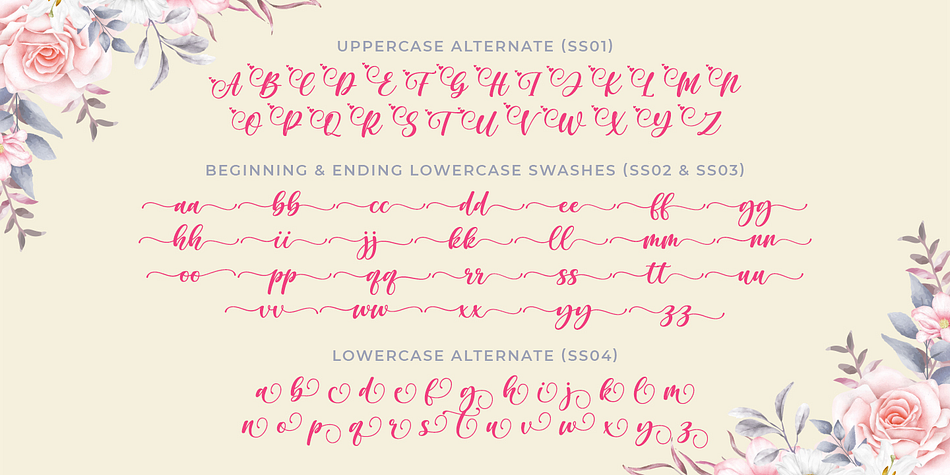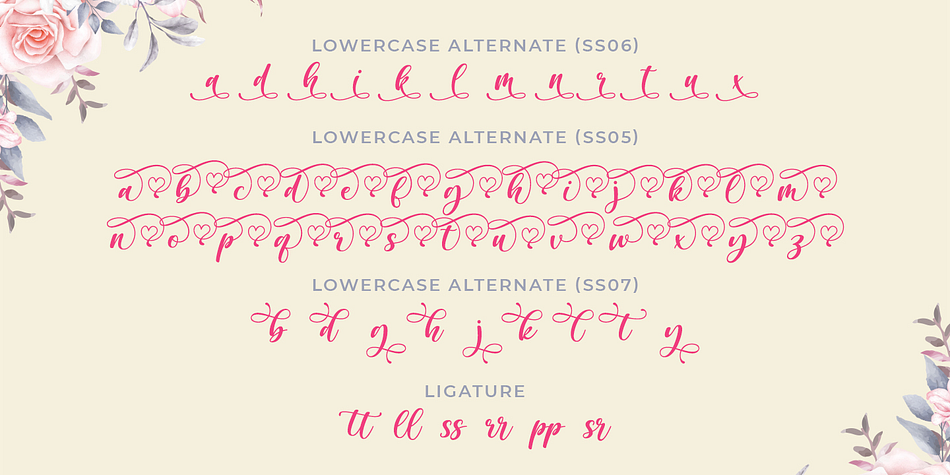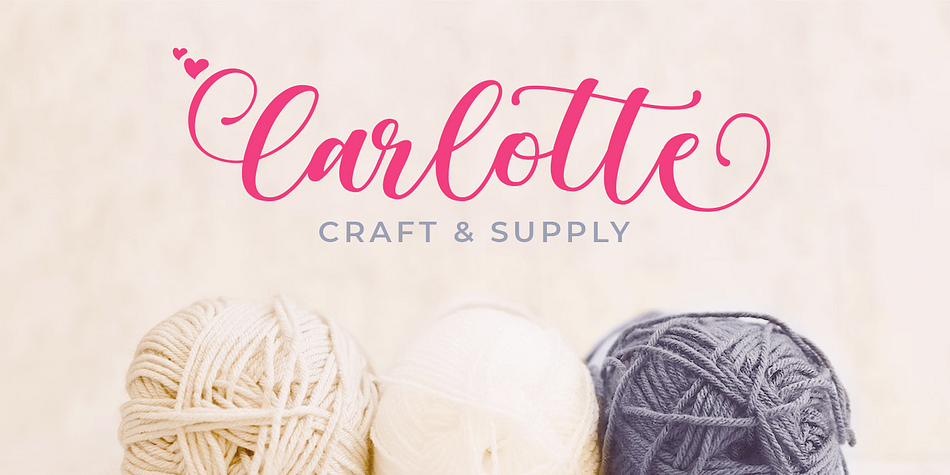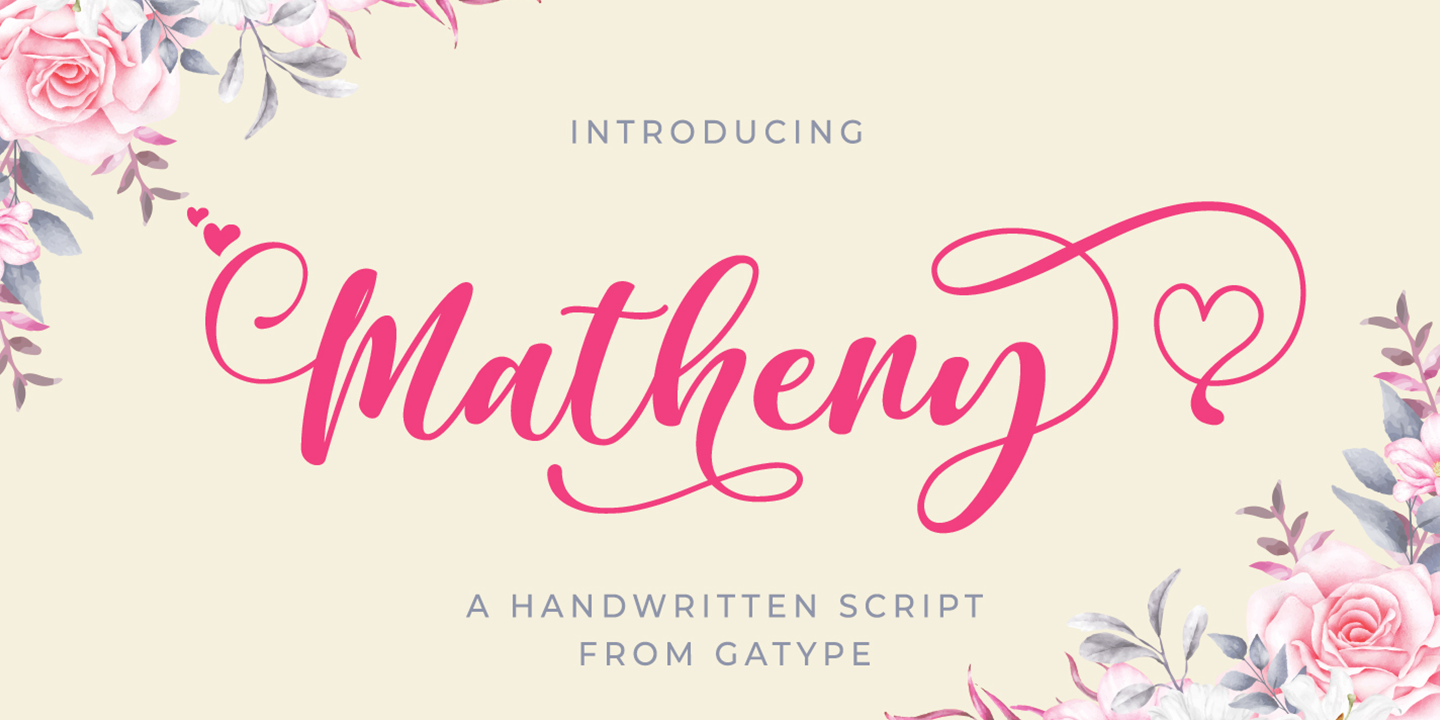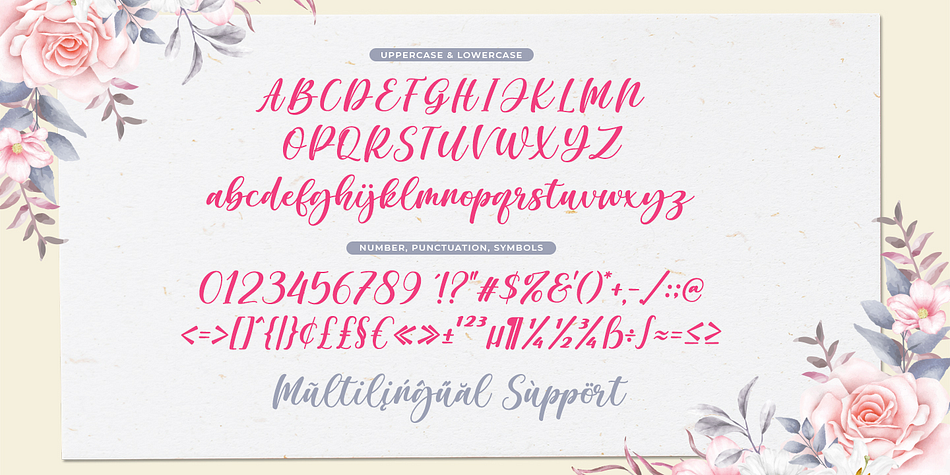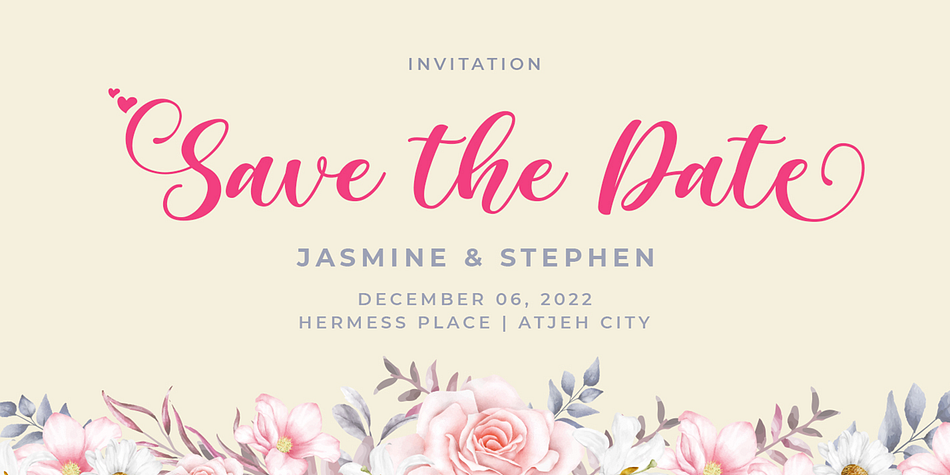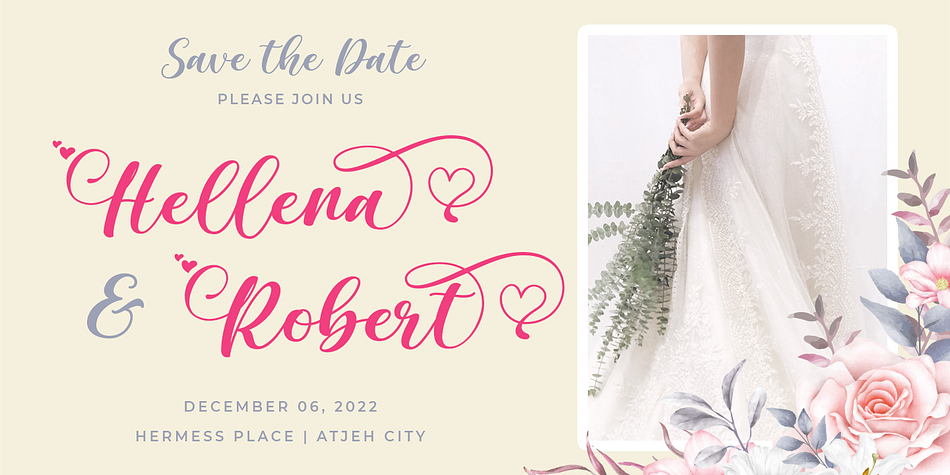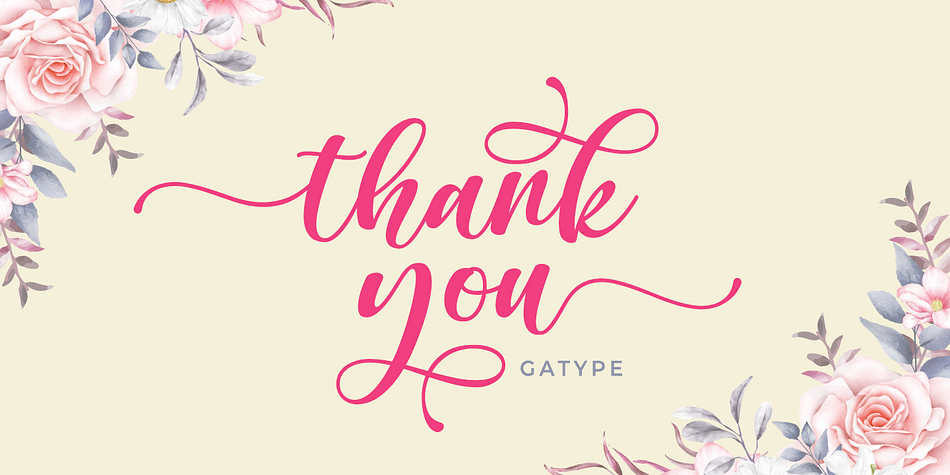
Matheny
Matheny is a brush script font family published by Gatype.
Matheny is a beautiful brush signature font. Built for any professional project branding. Each letter has a unique and beautiful touch. Use Breathing for a variety of designs, such as posters, banners, logos, book covers, titles, print products, merchandise, social media, and more.